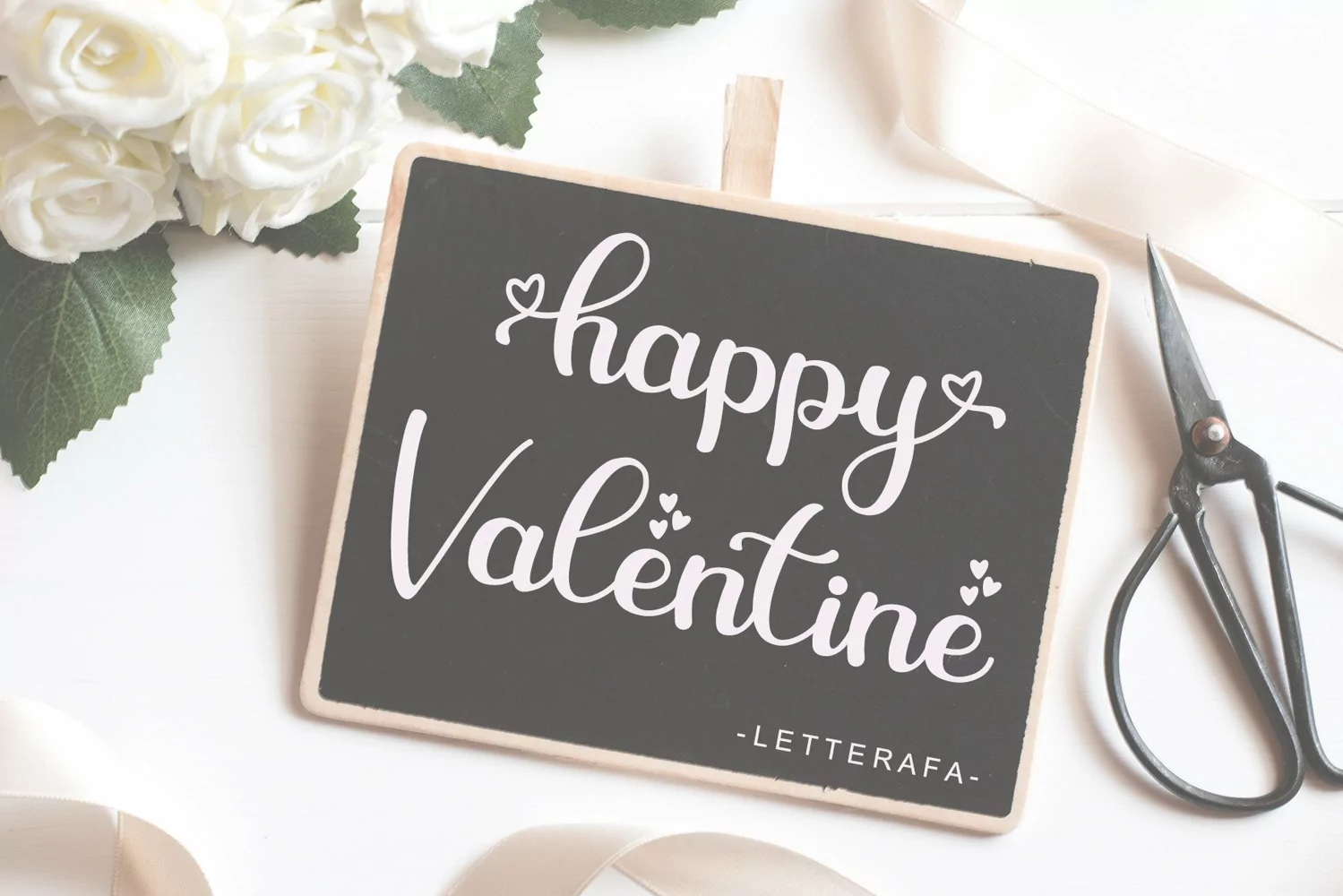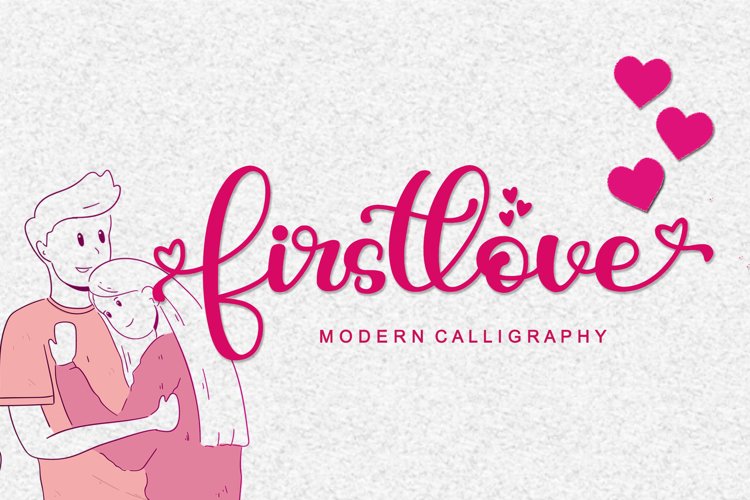
Beautiful Handwritten
FIRSTLOVE
Firstlove Font is a modern calligraphy font by Letterafa Studio. It has flowing letters that will give your designs a unique and sweet look with many lovely caracters. Firstlove font is perfect; logos, greeting cards, a package design, a brand identity, craft design, any DIY project, book title, wedding invitation, packaging, and more.
- Basic Uppercase and Lowercase
- Lowercase Alternate
- Lowercase Swash
- Ligature
- Titling
- Number and Punctuation